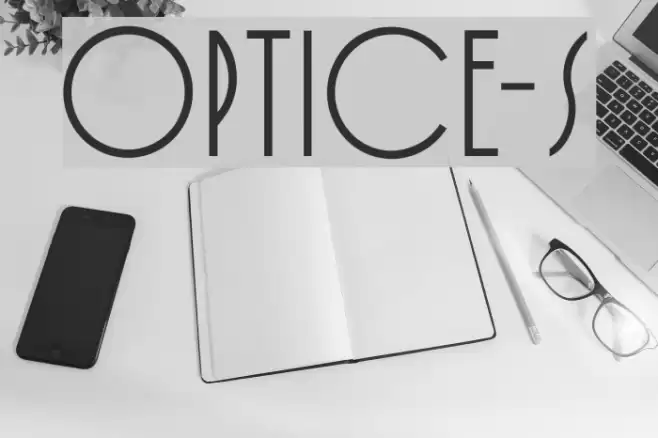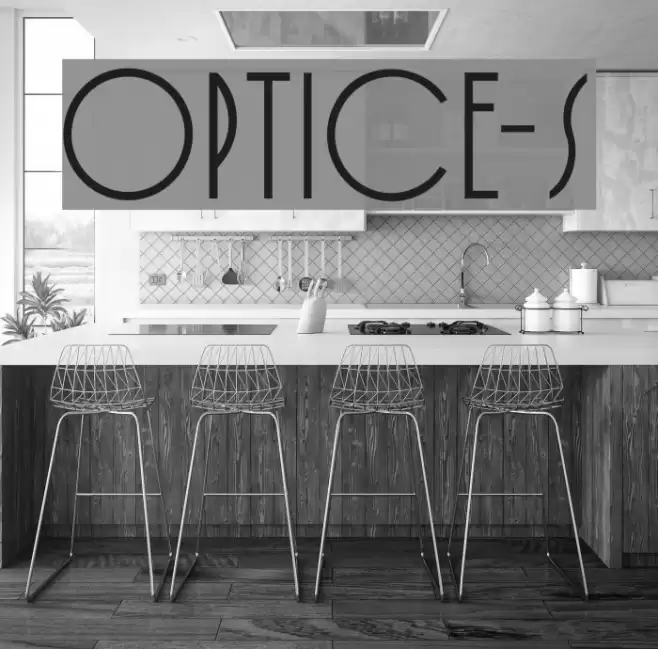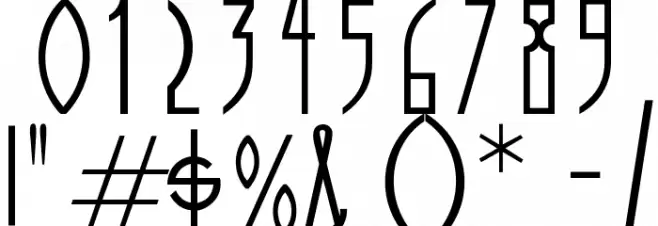
OPTICinema-Solid Font
OPTICinema-Solid Description
This font features a distinct Art Deco-inspired design with tall, narrow letterforms and geometric shapes. The uppercase letters are particularly elongated, giving a sense of elegance and sophistication. The lowercase letters maintain a consistent style, complementing the uppercase with their sleek and modern appearance. Numbers and special characters follow the same aesthetic, ensuring a cohesive look across all text. The overall style is both decorative and functional, making it suitable for a variety of creative applications.
A tall, narrow Art Deco-inspired font with geometric elegance from Uncategorized fonts.
- Proposed Projects: Ideal for movie posters, vintage-themed branding, luxury product packaging, and editorial design.
- Overall Style: Vintage